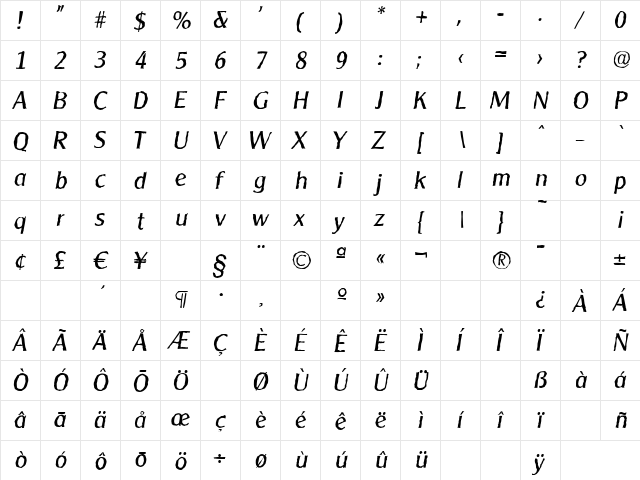
ClearGothicAntique Italic
Design Context for ClearGothicAntique Typeface
ClearGothicAntique wears its vintage influences proudly, with letterforms that recall mid-century signage, classic packaging, and nostalgia-driven design. The dynamic lean of this cut emphasises speed and emphasis in any layout.
Font Pairing: Combine ClearGothicAntique with a simple slab or neutral sans — period-accurate companions reinforce the vintage feel without competing for attention.
Pro Tip: Lean into ClearGothicAntique's period character by pairing it with aged paper textures, muted colour palettes, and vintage illustration styles.